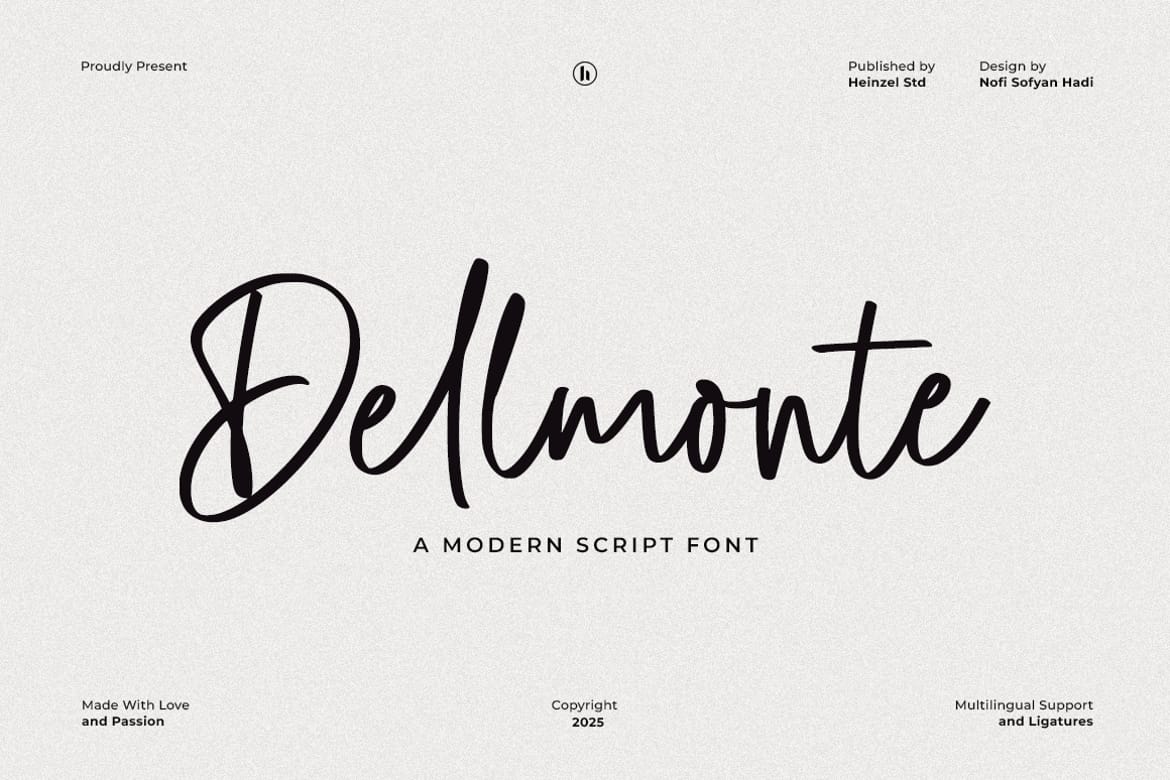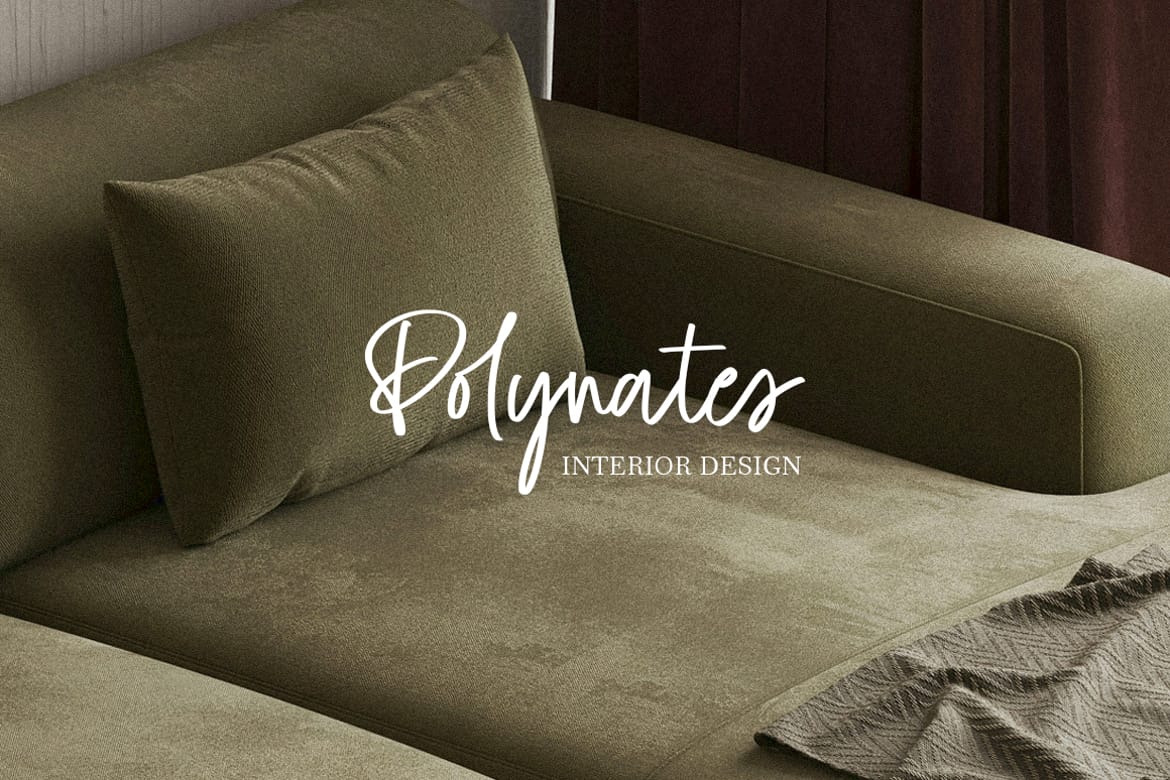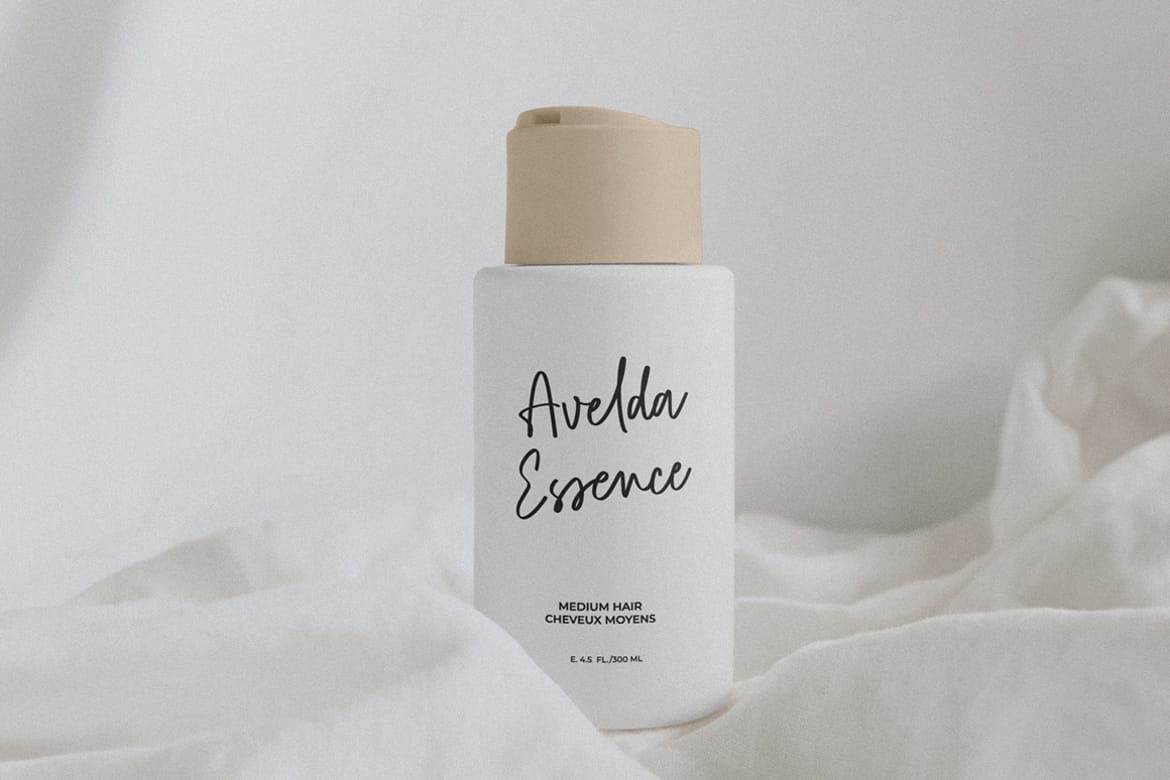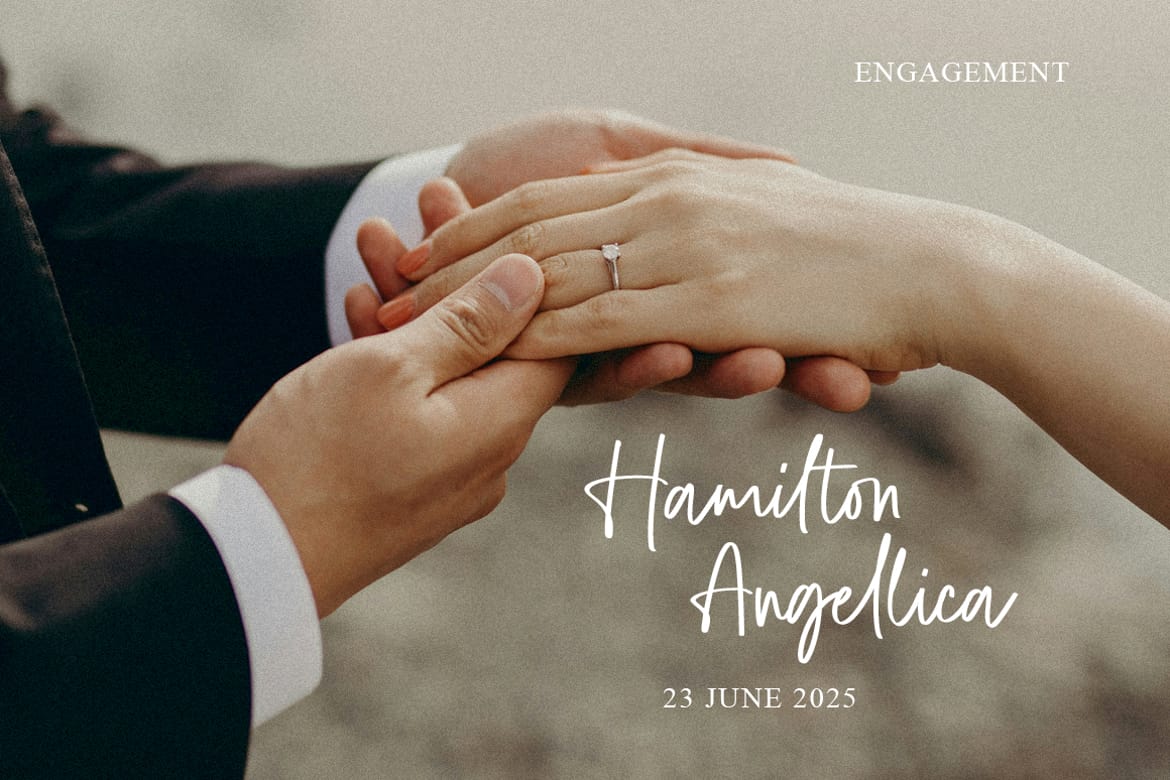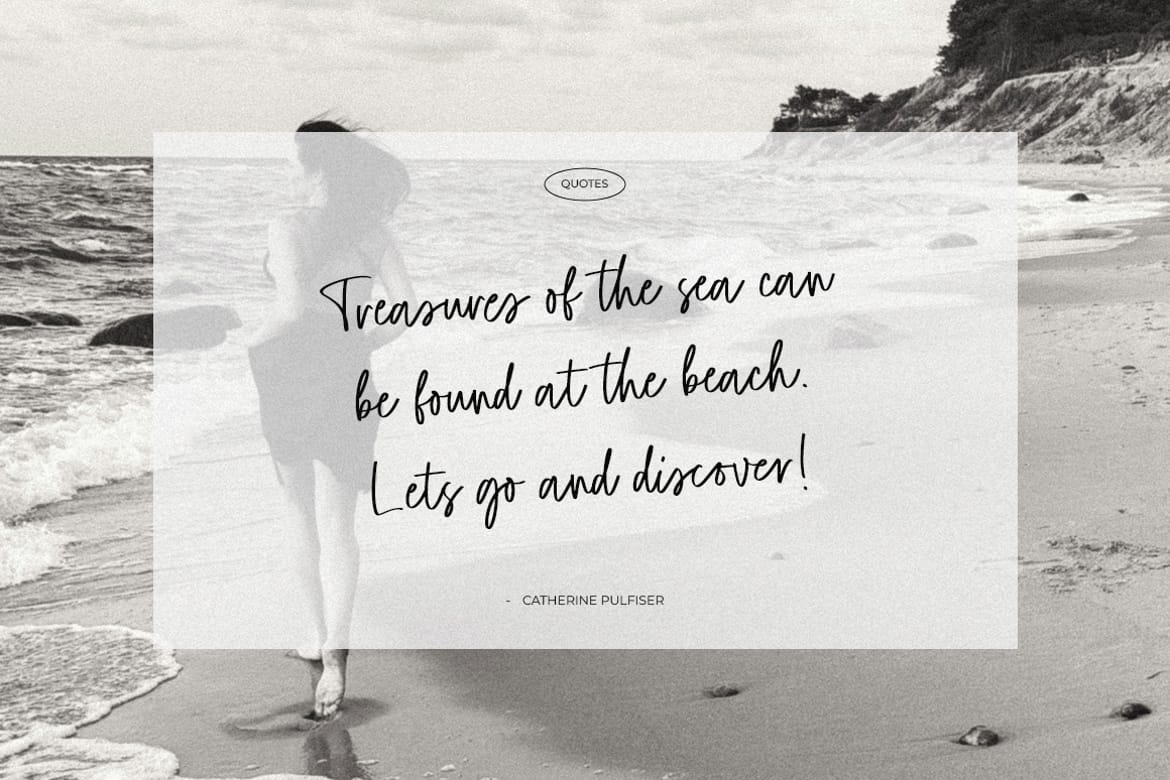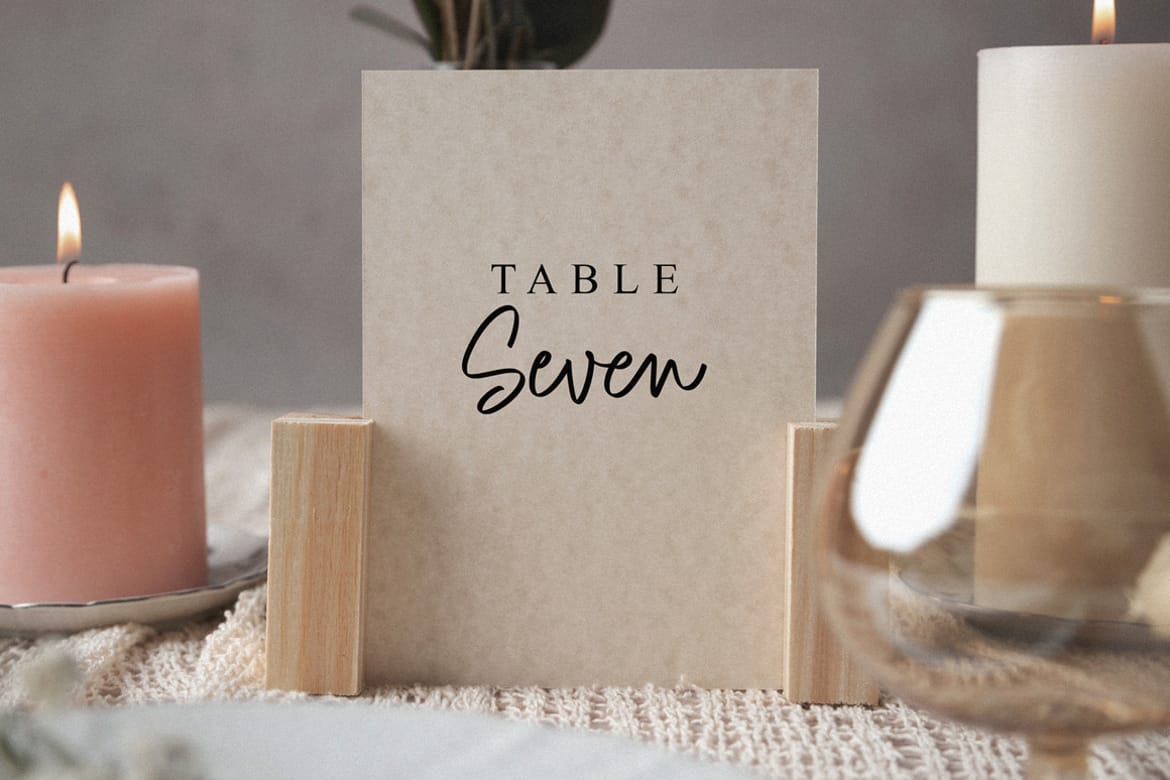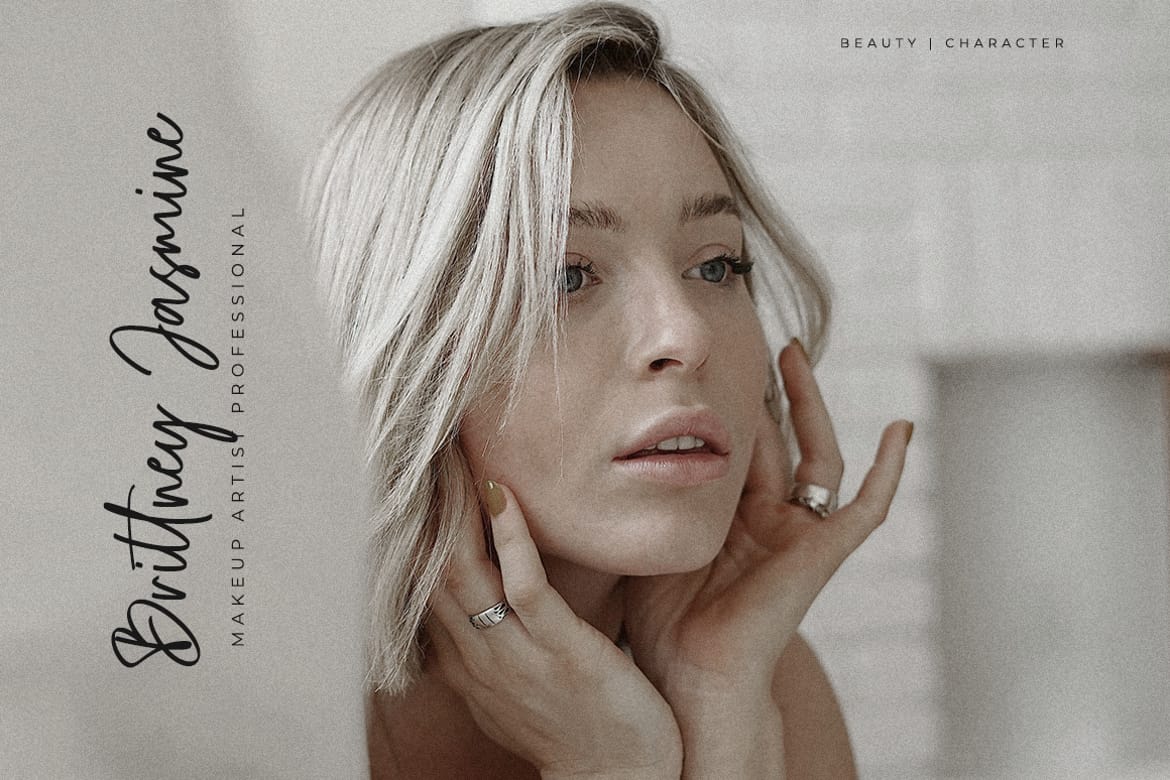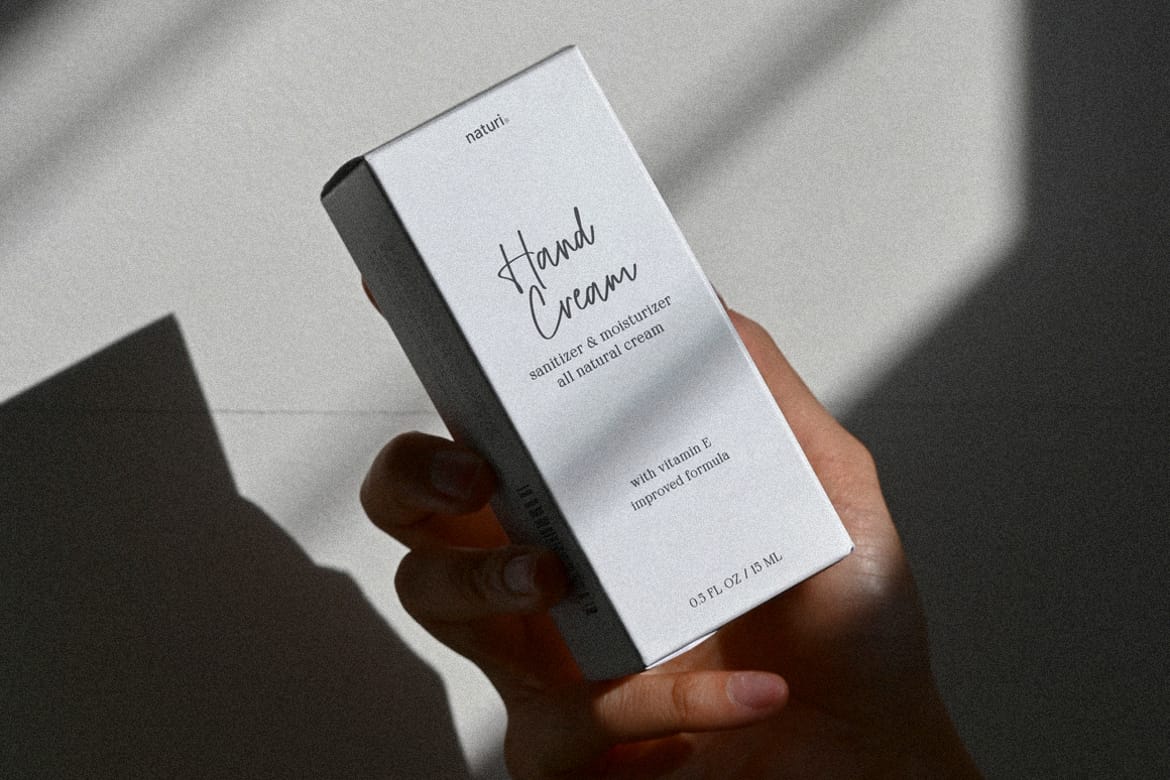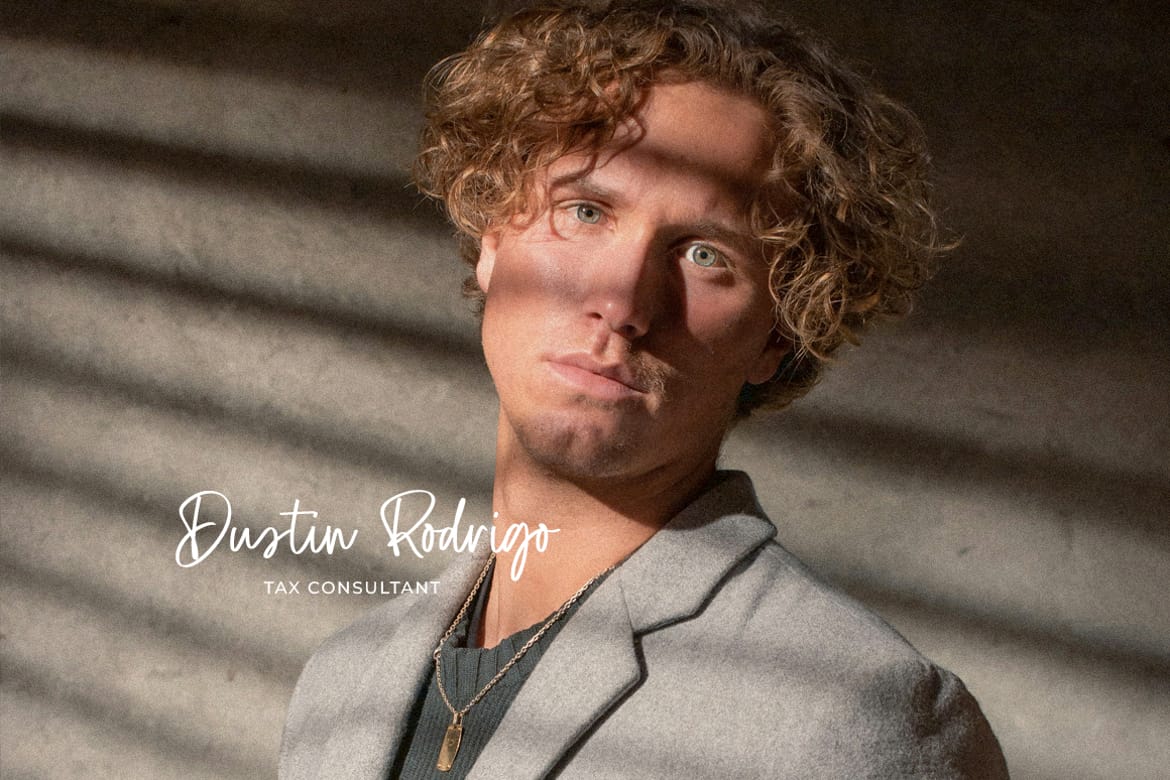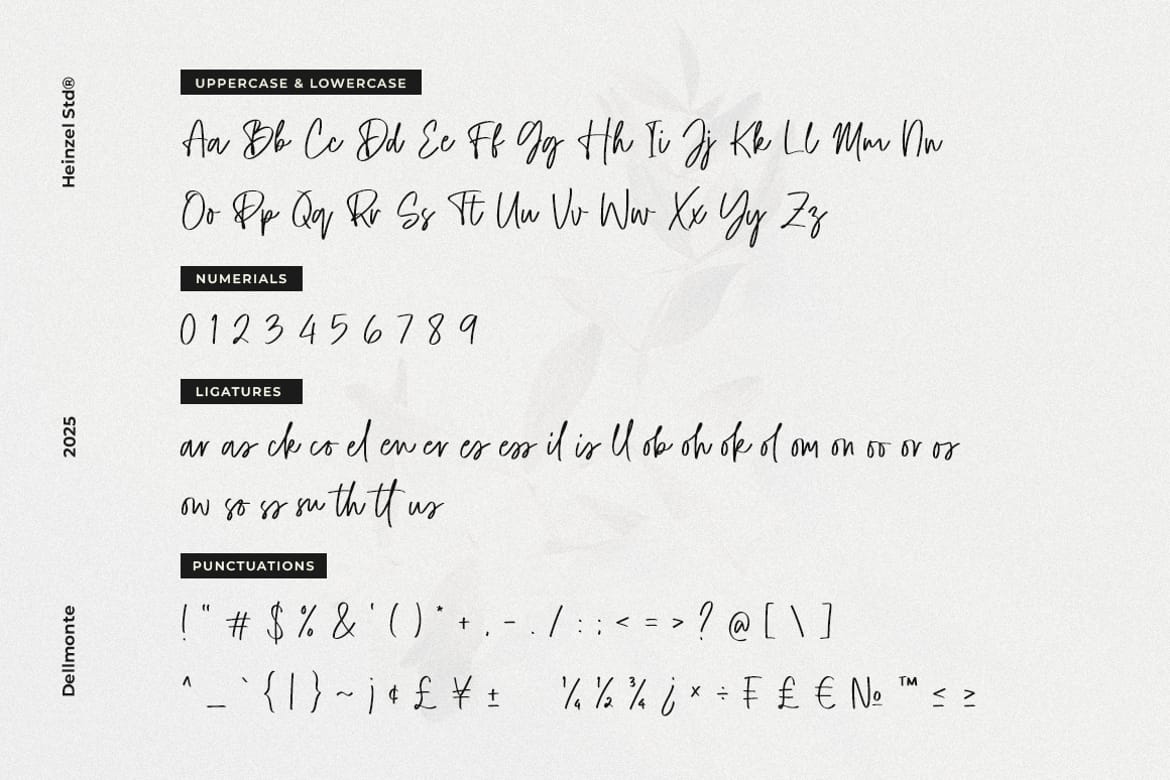
Dellmonte Casual Script Font
Dellmonte is a stylish modern script font that blends elegance with a natural handwritten touch. With smooth curves, beautiful ligatures, and multilingual support, Dellmonte is perfect for logos, branding, wedding invitations, social media posts, packaging, and more. Add a timeless yet contemporary charm to your designs with Dellmonte today!
• Ligatures